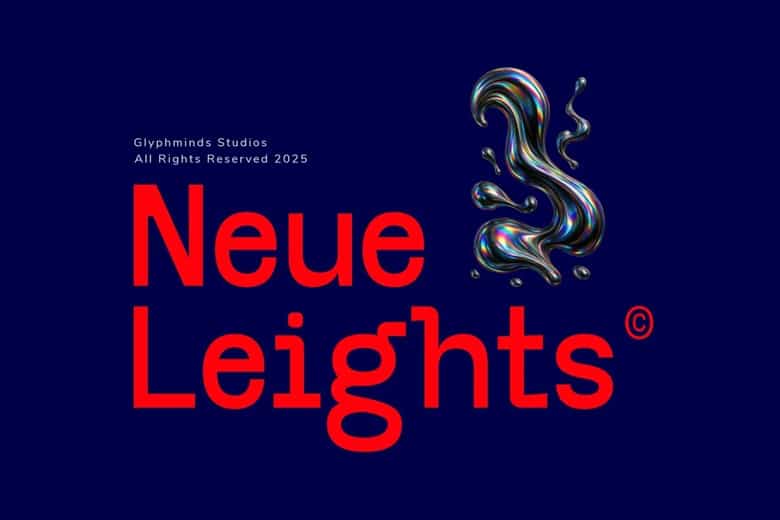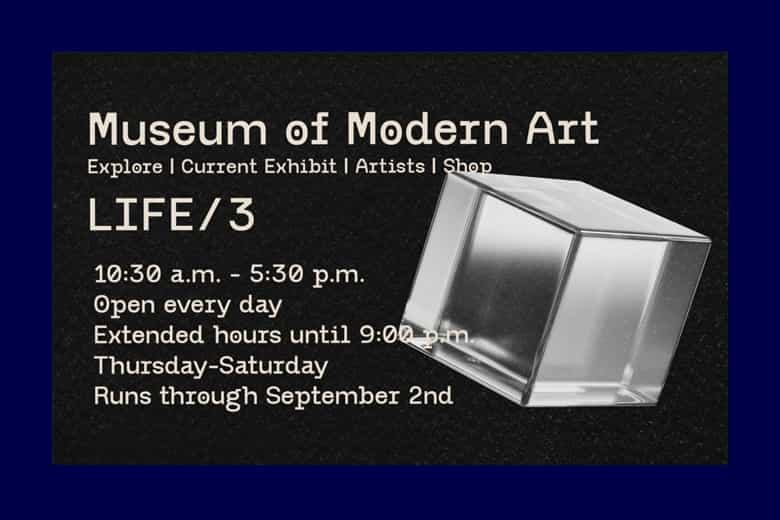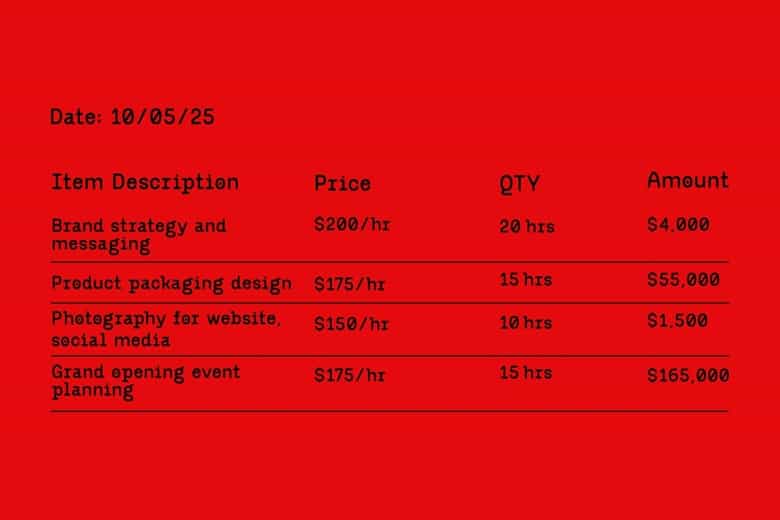
Neue Leights is a fantastic monospaced sans serif typeface that looks fresh and clean while still having a special, flowing look. Perfect for bold headlines, logos, and online work, this font’s sparkling look will help your project look really special.